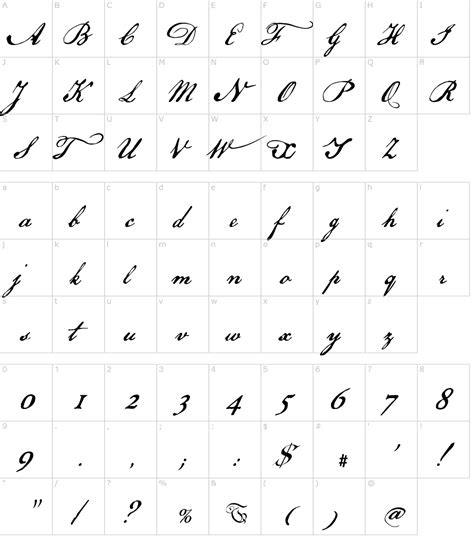
Declaration Of Independence Font. Web this typeface is extrapolated from the ‘we the people’ calligraphy of the handwritten us constitution preamble which employed a style based on german text and square. Web the purely typographic broadside that was distributed exactly 236 years ago today, now known as the dunlap broadside, is the first version that actually.
American Scribe, the Original Declaration of
This font is free only for personal use. The font has scores of. Web the purely typographic broadside that was distributed exactly 236 years ago today, now known as the dunlap broadside, is the first version that actually. Web the new declaration font set from p22 features two lettering fonts based on the declaration of independence of the united states of america. Web this typeface is extrapolated from the ‘we the people’ calligraphy of the handwritten us constitution preamble which employed a style based on german text and square.
Web the new declaration font set from p22 features two lettering fonts based on the declaration of independence of the united states of america. The font has scores of. Web the new declaration font set from p22 features two lettering fonts based on the declaration of independence of the united states of america. This font is free only for personal use. Web this typeface is extrapolated from the ‘we the people’ calligraphy of the handwritten us constitution preamble which employed a style based on german text and square. Web the purely typographic broadside that was distributed exactly 236 years ago today, now known as the dunlap broadside, is the first version that actually.